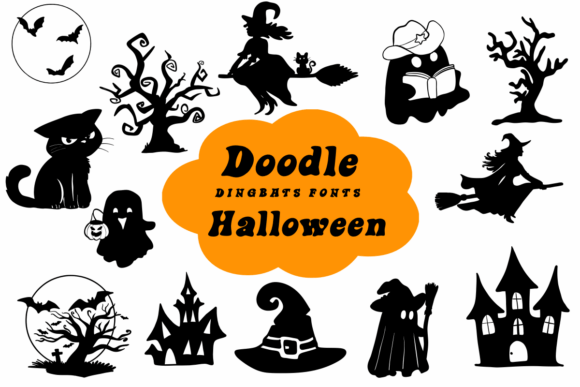
The Spooky Season is Here: Get Ready with Doodle Halloween Font
As the sun sets on crisp autumn evenings, creativity strikes. You’re rummaging through your craft supplies, searching for the perfect touch to make your Halloween party invitations stand out. Suddenly, your eyes land on a dusty old sketchbook filled with doodles of ghosts, bats, and witches. The spark is lit, and you can’t wait to infuse your designs with a dash of spooky-cute charm.
Enter Doodle Halloween Font, a delightful dingbat font packed with hand-drawn silhouettes of Halloween icons. This versatile font lets you add themed illustrations to your designs without needing separate graphics. Whether you’re a designer, crafter, or educator, Doodle Halloween Font is a valuable addition to your toolkit. It’s perfect for creating festive invitations, treat bags, and classroom décor that will leave a lasting impression on kids and adults alike.
Doodle Halloween Font Key Features
- Unique Hand-Drawn Design: The Doodle Halloween Font features a distinctive hand-drawn design that gives it a spooky and playful feel.
- Character Set: The font includes a wide range of characters, including uppercase and lowercase letters, numbers, and punctuation marks.
Doodle Halloween Font Review
As a designer, I was excited to try out the “Doodle Halloween Font”. Overall, I found it to be a fun and creative addition to any Halloween-themed project. Here’s my honest review.
- The unique and playful design of the font makes it perfect for adding a spooky touch to any project.
- The variety of doodle-style illustrations included with the font make it easy to create engaging and creative designs.
- The font is highly customizable, making it easy to adjust the size, color, and style to fit your needs.
- The font may be too playful for more formal or serious projects.
- The doodle-style illustrations may not be suitable for projects that require a more realistic or detailed design.
Overall, I think the “Doodle Halloween Font” is a great addition to any designer’s toolkit. It’s perfect for adding a fun and creative touch to Halloween-themed projects, but may not be the best choice for more formal or serious designs.
“Doodle Halloween Font” is ideal for:
Creating spooky invitations and party decorations.
Designing Halloween-themed social media graphics and ads.
Adding a playful touch to educational materials and presentations.